Use These Fun Fonts & Let Your Graphics Show Your Fun Side!
You are colorful, unique, fun & vibrant. But find it hard to translate that energy in your work?
You want to be out there with your art but can’t compose your thoughts in a confined canvas of 1000×2000?
We are here to help you with your creative dilemma!
Here’s The Amazing Fun Fonts Bundle that will help you give the right vibes to your graphics be it comic, goofy, minimalistic or modern. Now you have the right fonts at your fingertips.
Design unique kids book covers, party invites, social media posts & so much more with these quirky yet gorgeous fonts.
The Font Families included in this fun fonts bundle:
Charmante (2 Fonts)
Galiba (3 Fonts)
Gibon (15 Fonts)
Sungarden (21 Fonts)
A Sneak Peek Into The Fun Fonts Bundle:
The Charmante Font Family
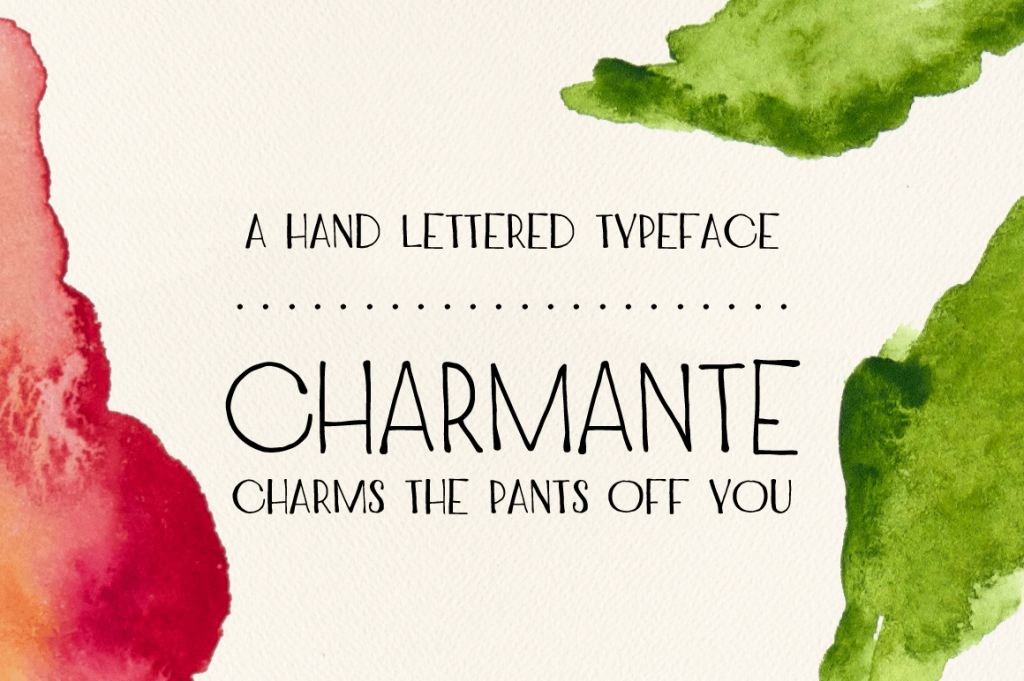
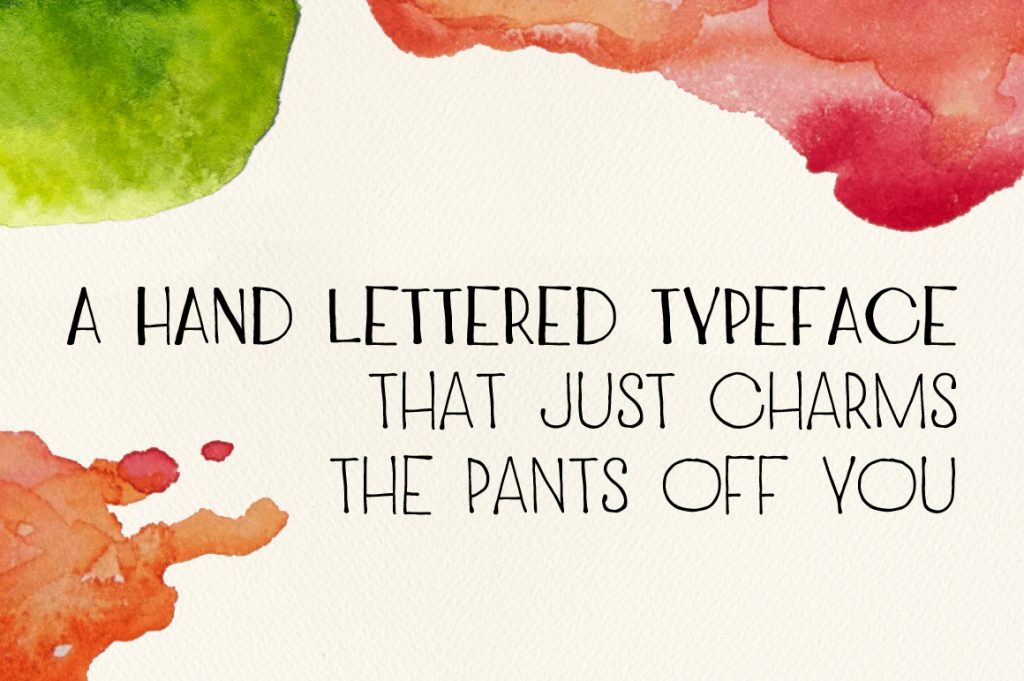
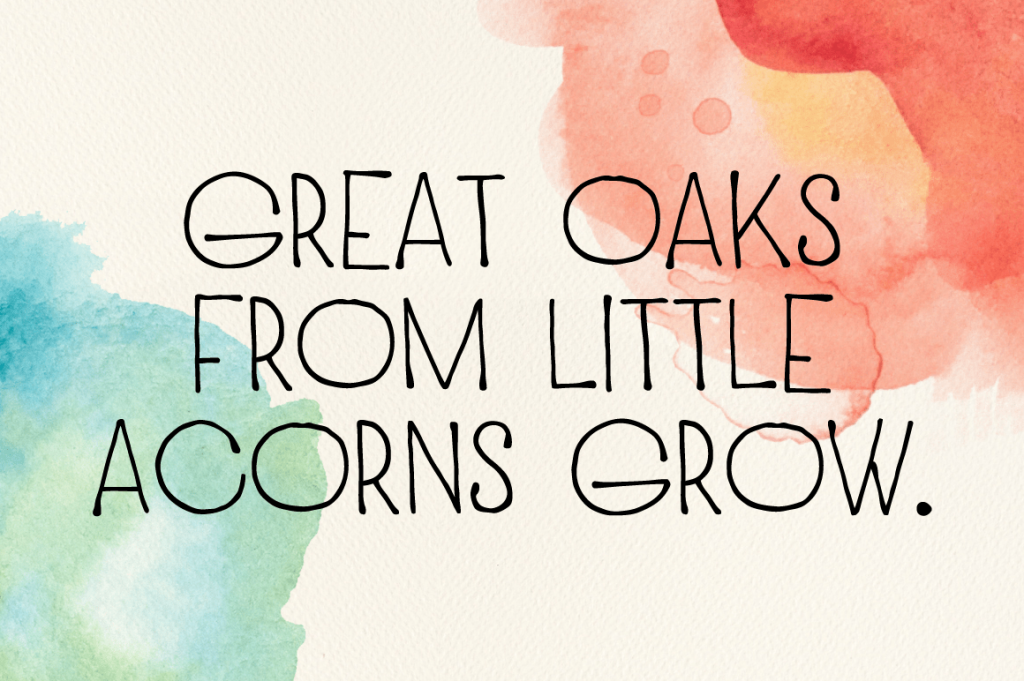
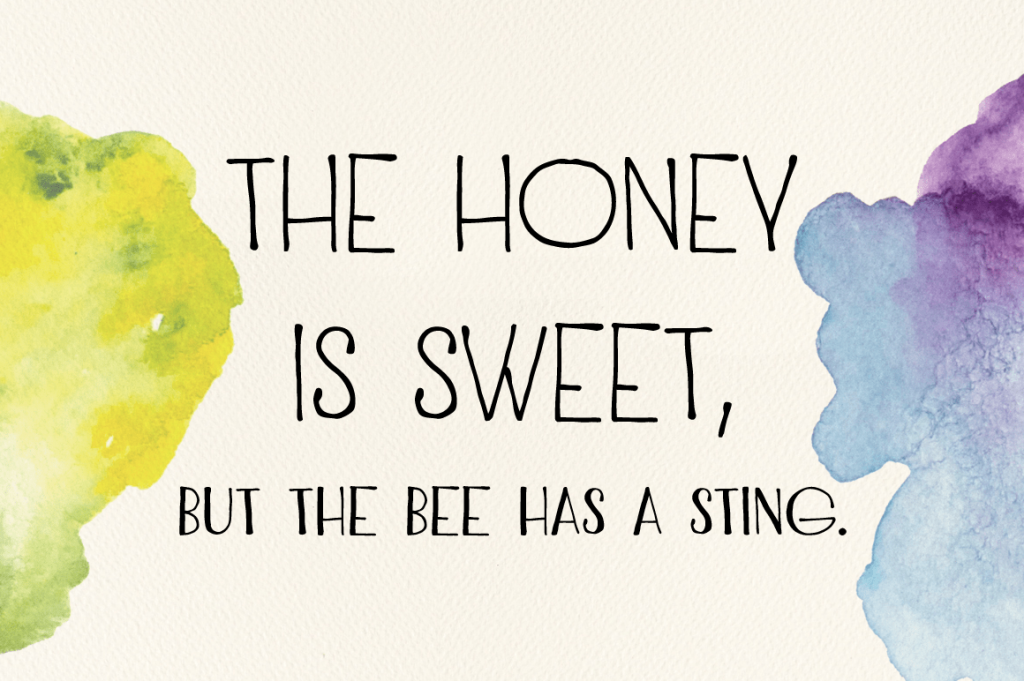
The Galiba Font Family
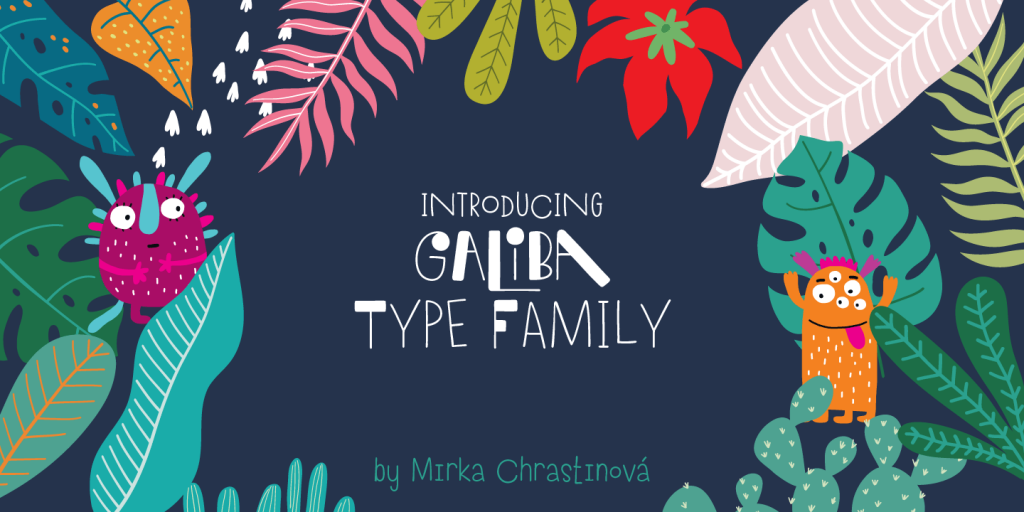
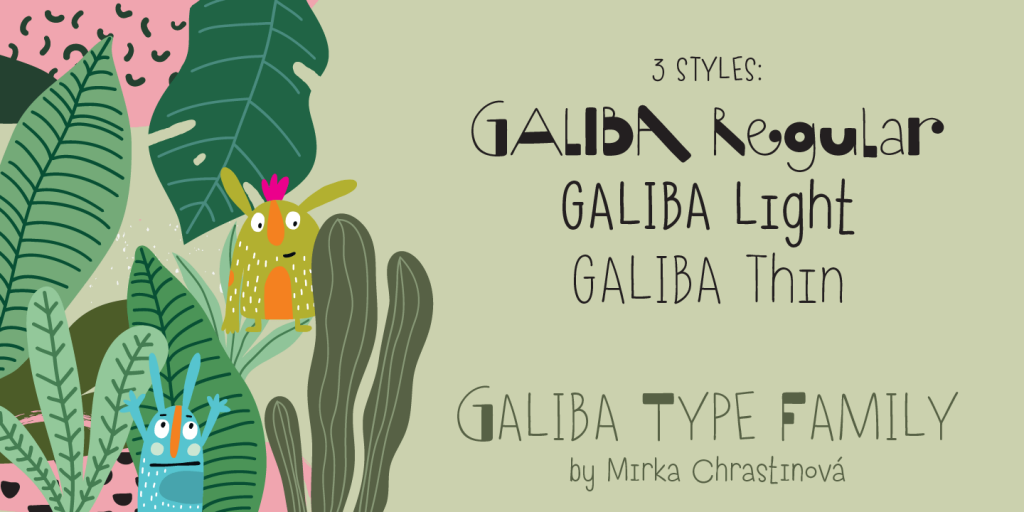
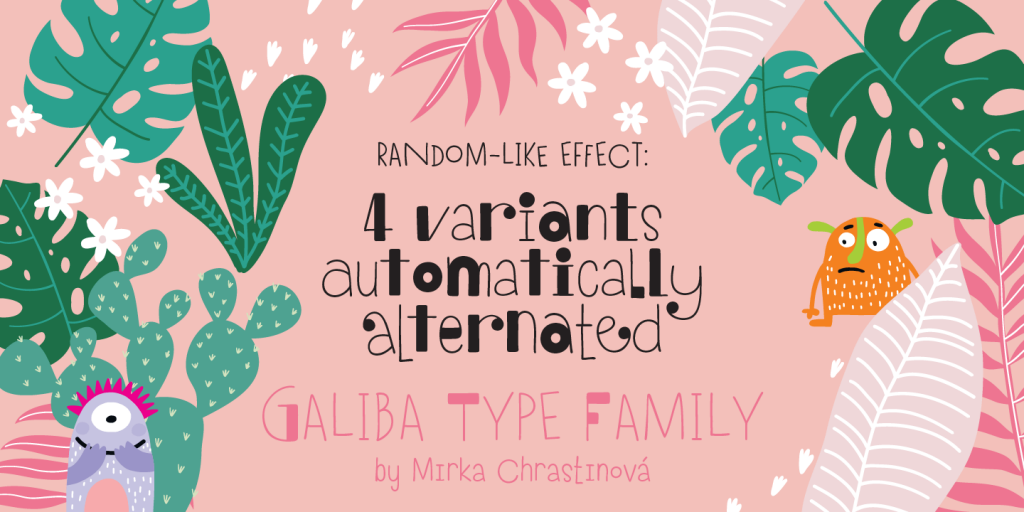
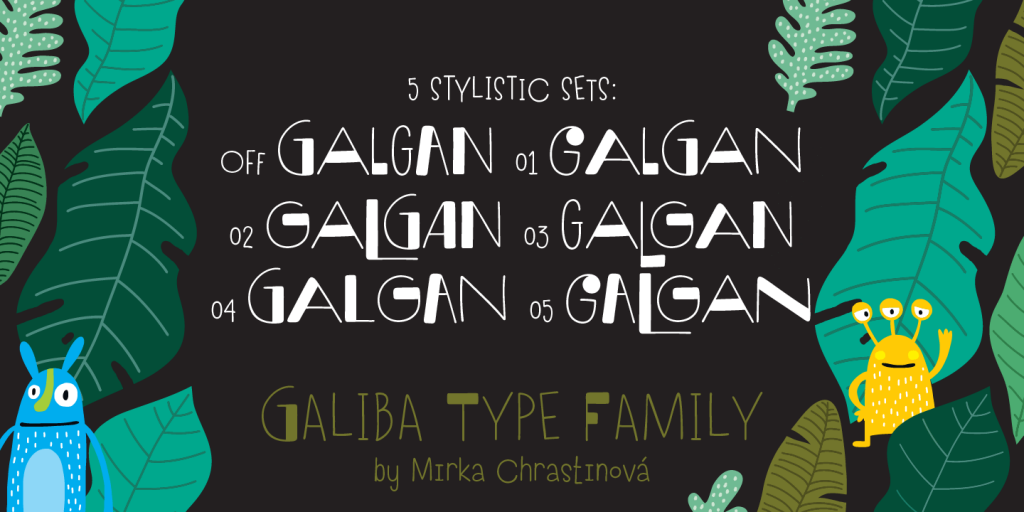
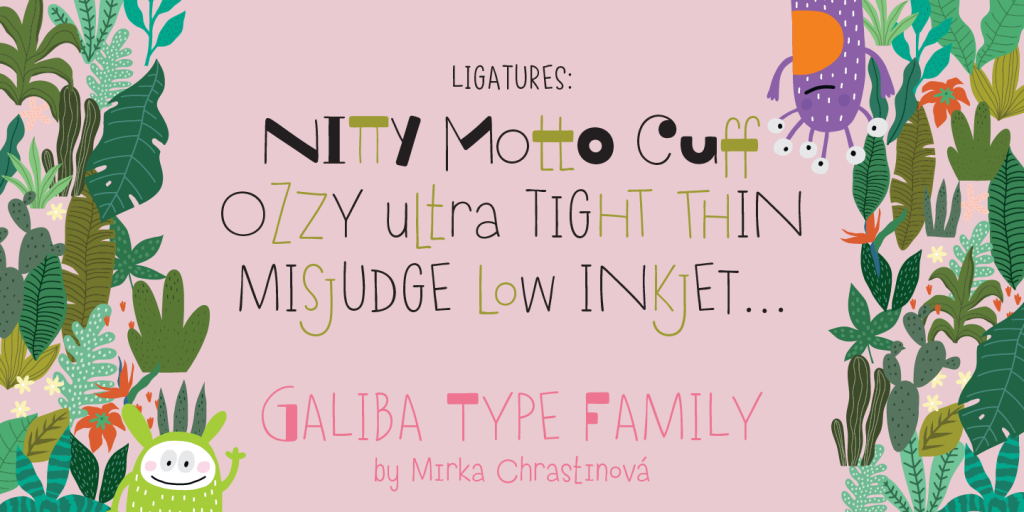
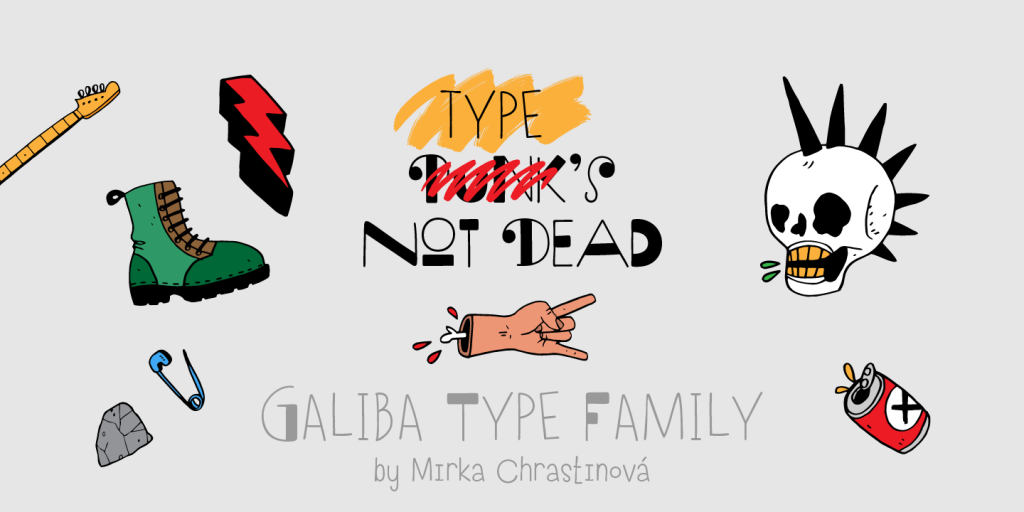
The Gibon Font Family
The Sungarden Font Family
Create Fresh Graphics With This Fun Fonts Bundle!